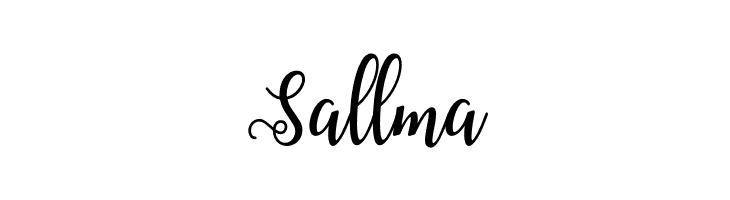
A playful and elegant script font with a handwritten style.
An elegant script font with decorative swirls and flourishes.
A playful, handwritten font with a whimsical and informal style.
An elegant script font with ornate swashes and flowing interconnected letters.
A lively and expressive handwritten font with fluid, dynamic strokes.
A playful and elegant script font with decorative swashes.